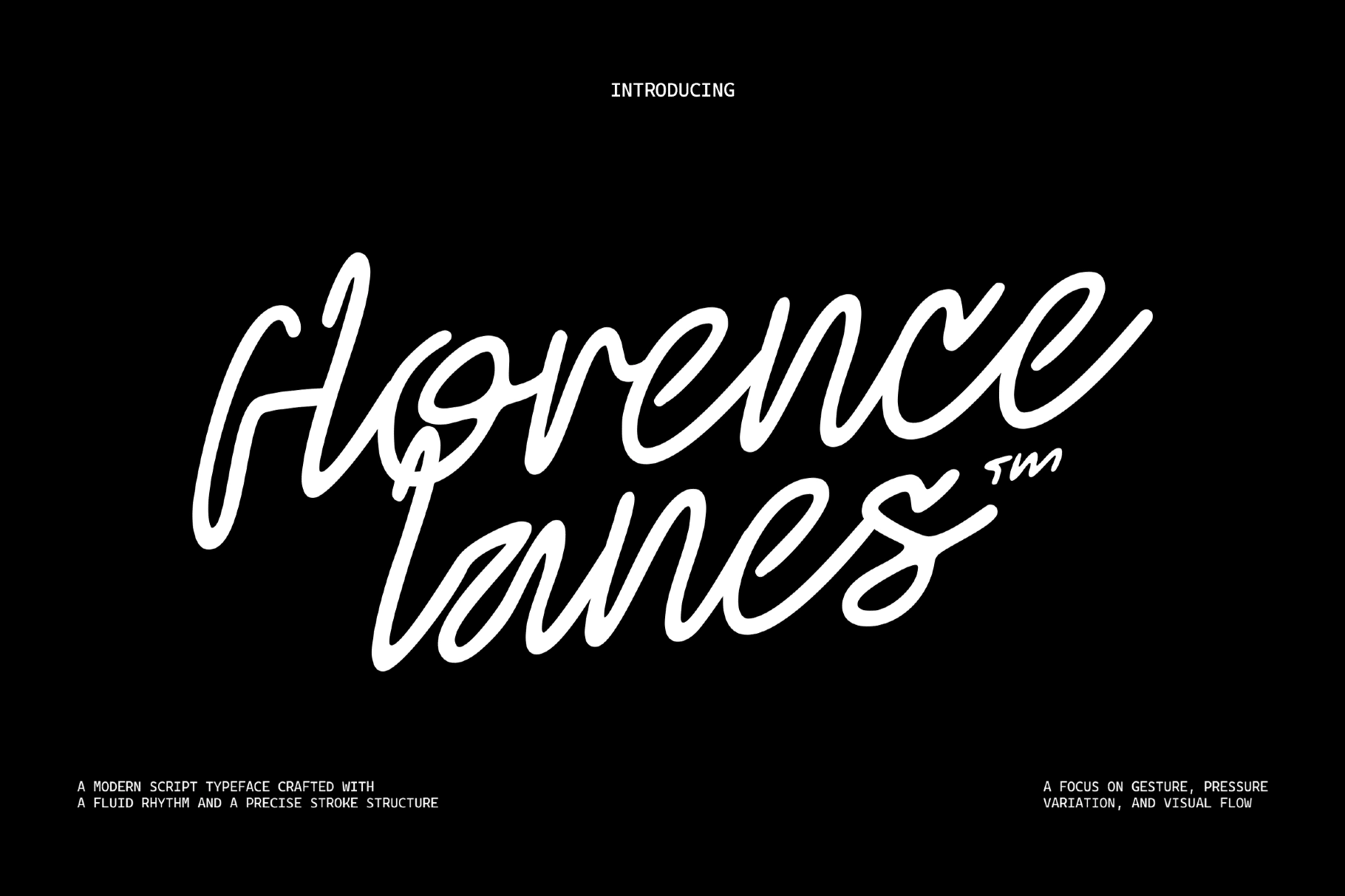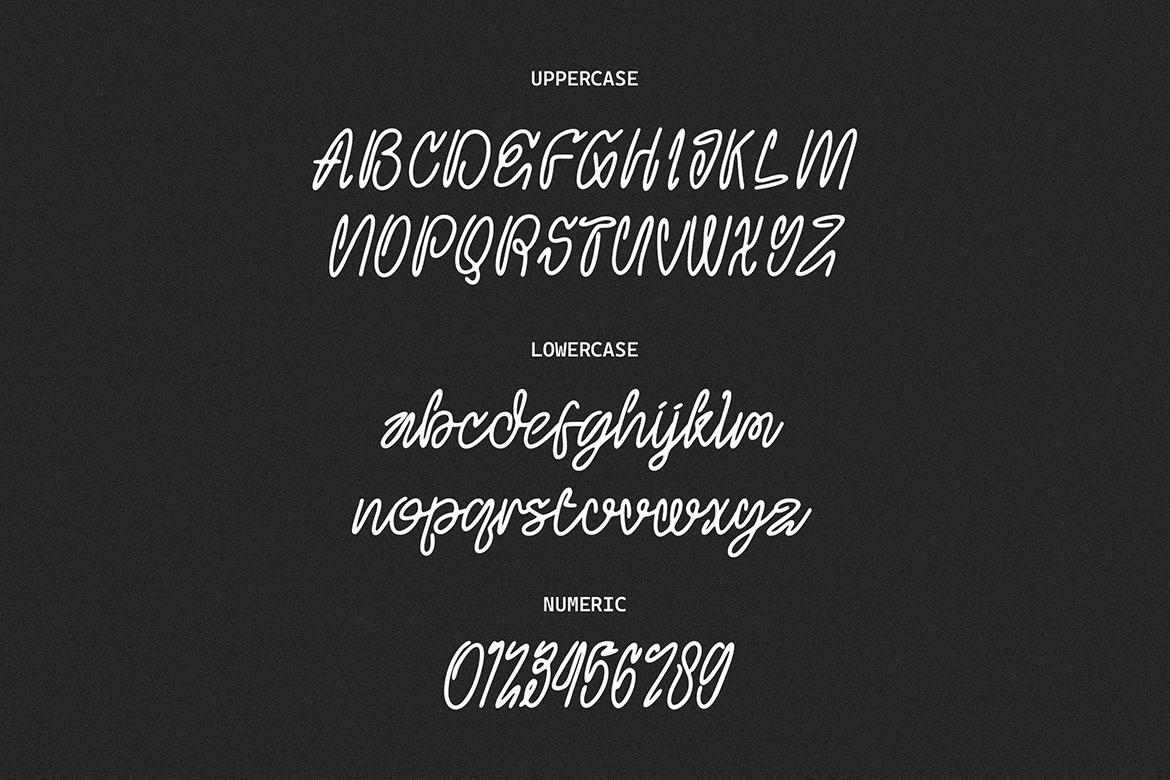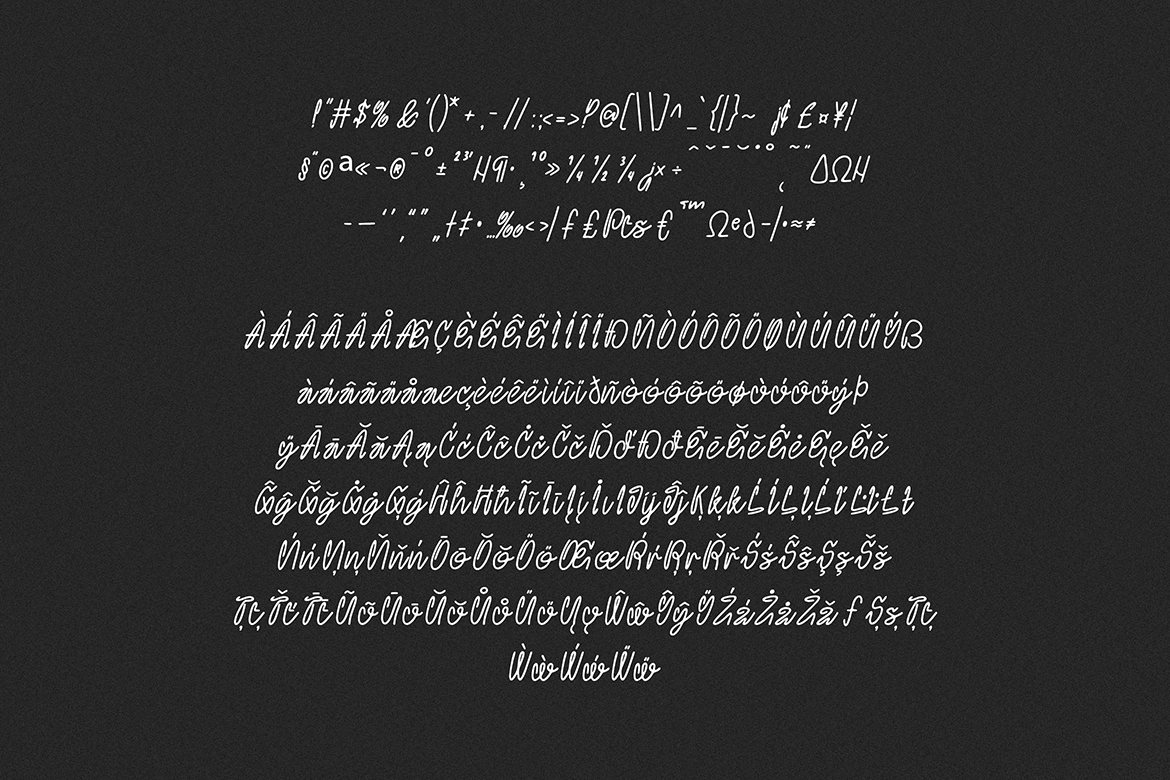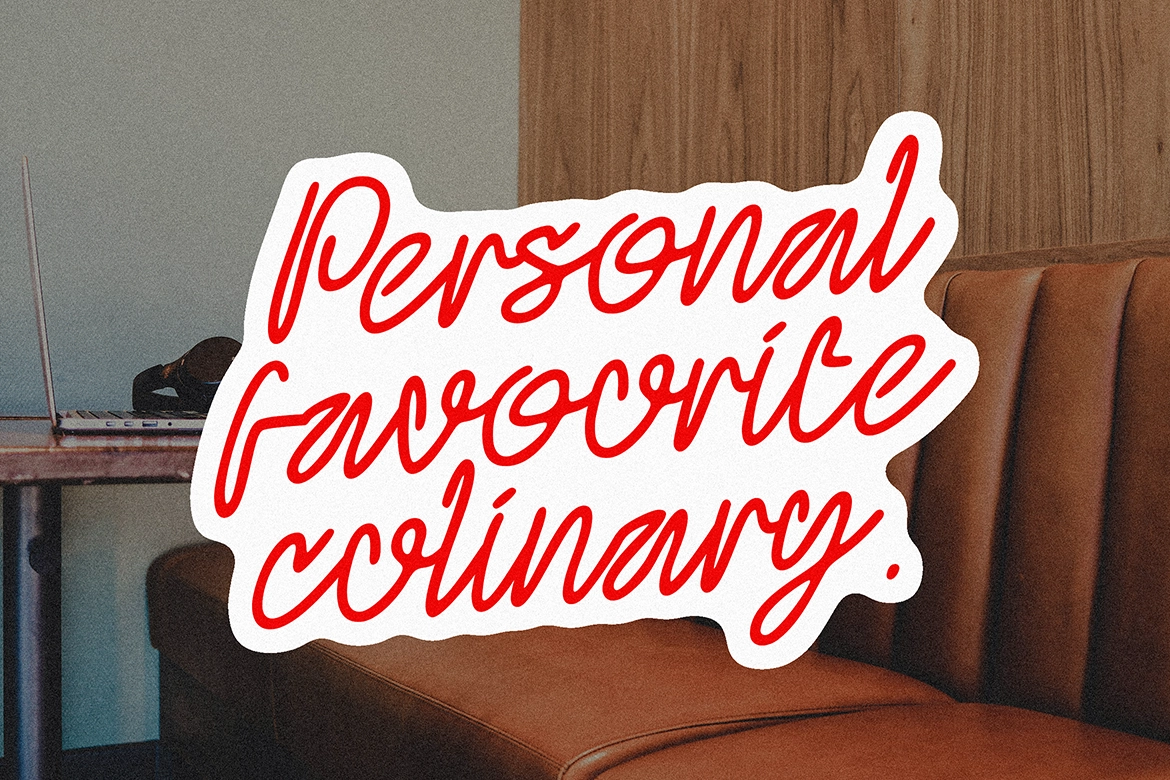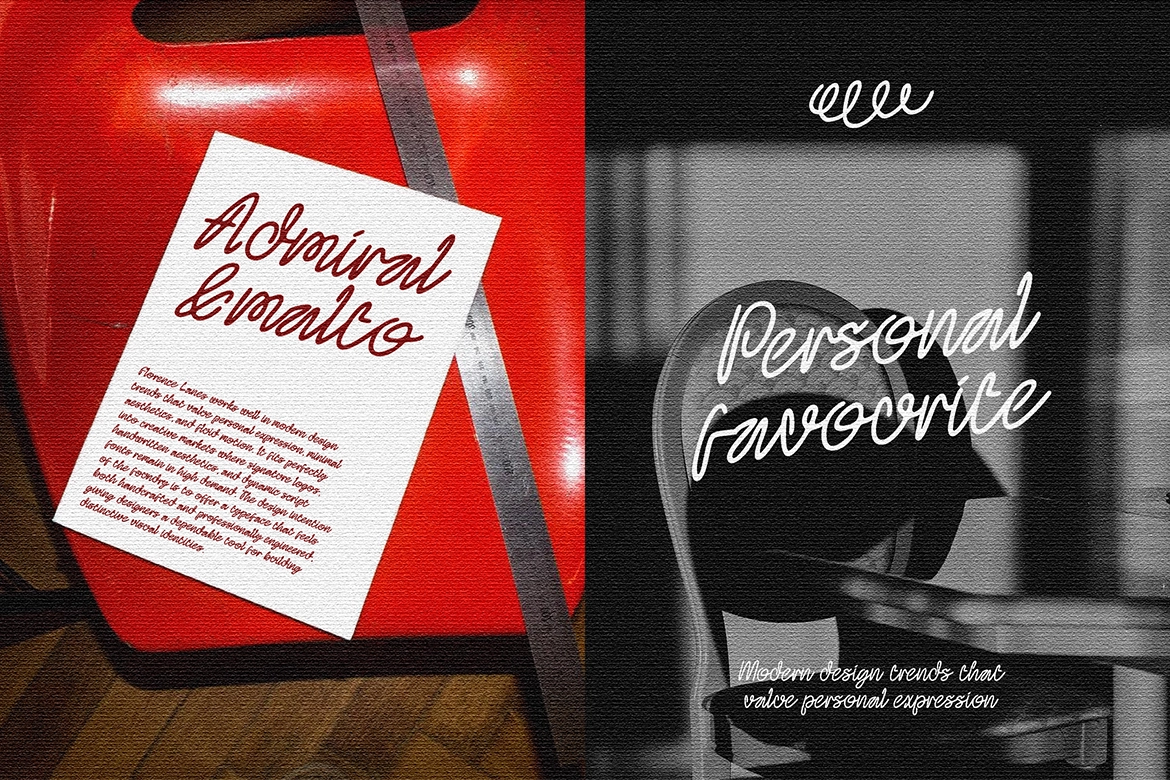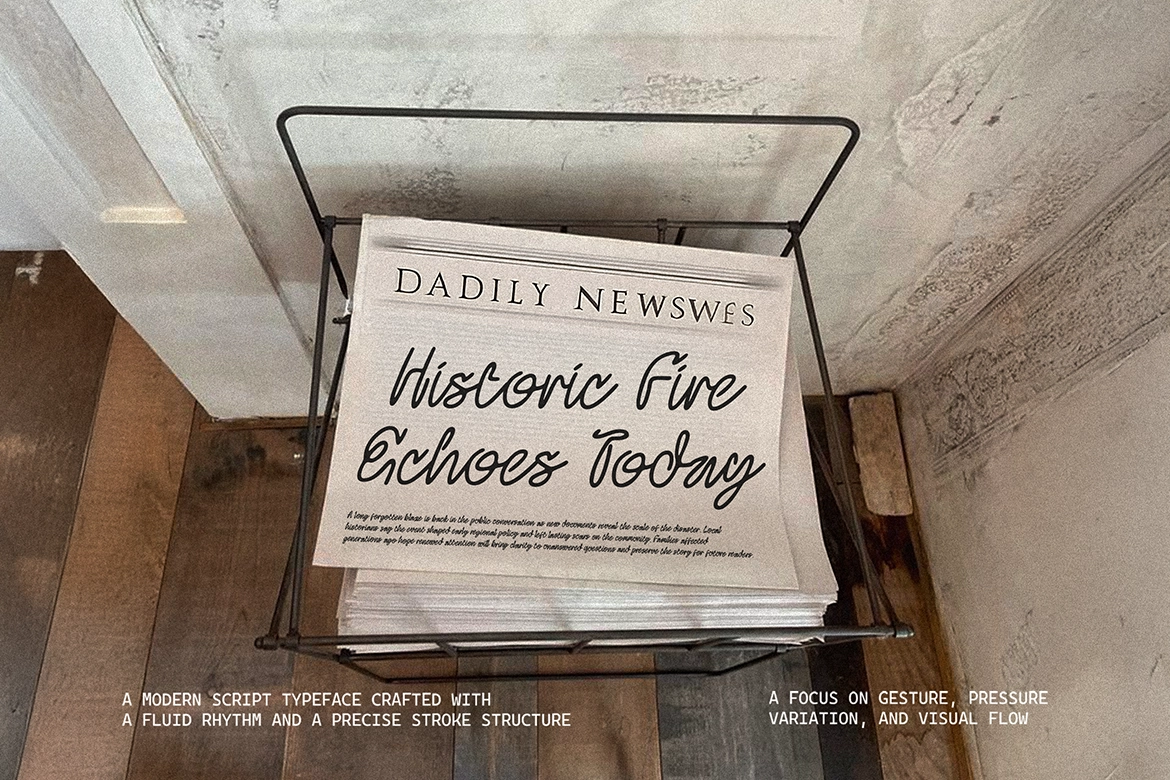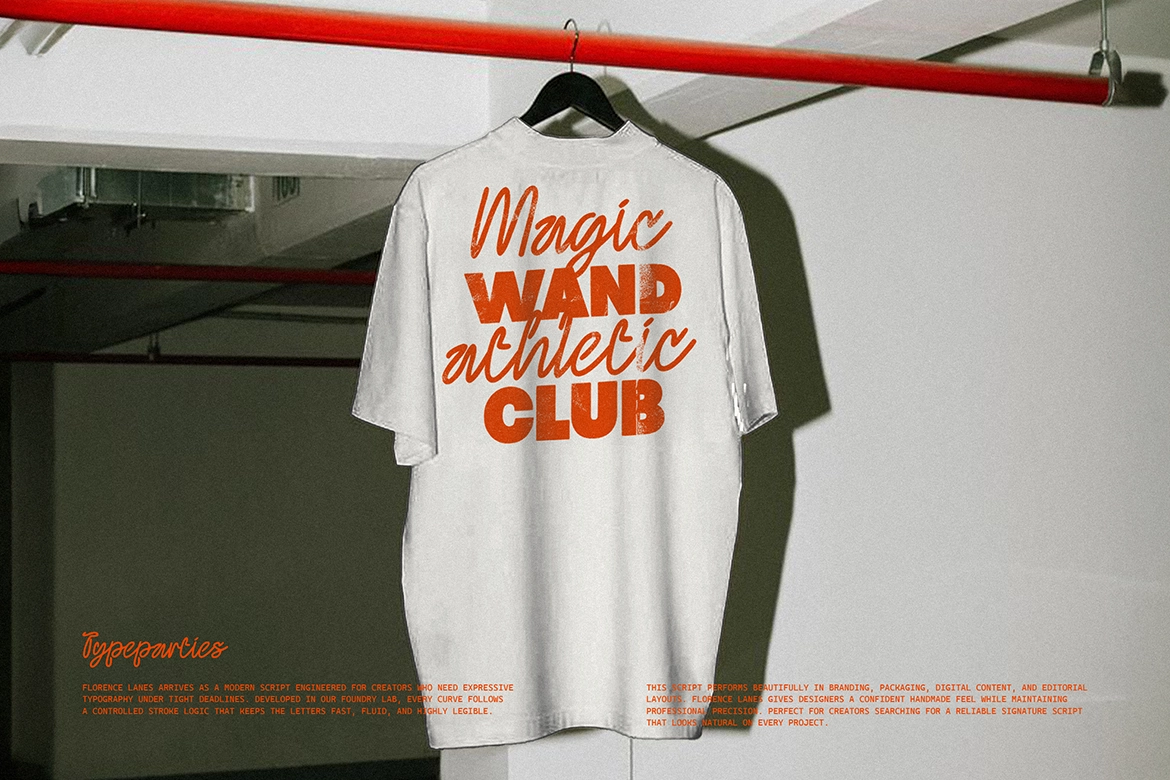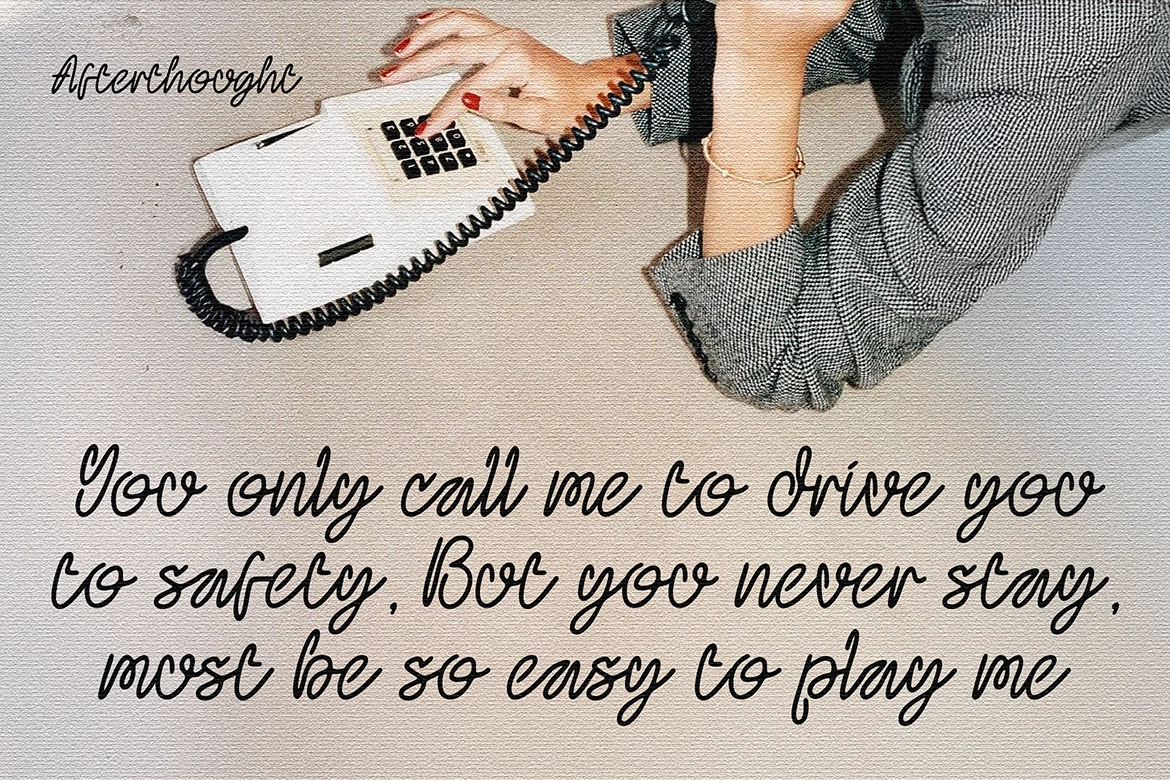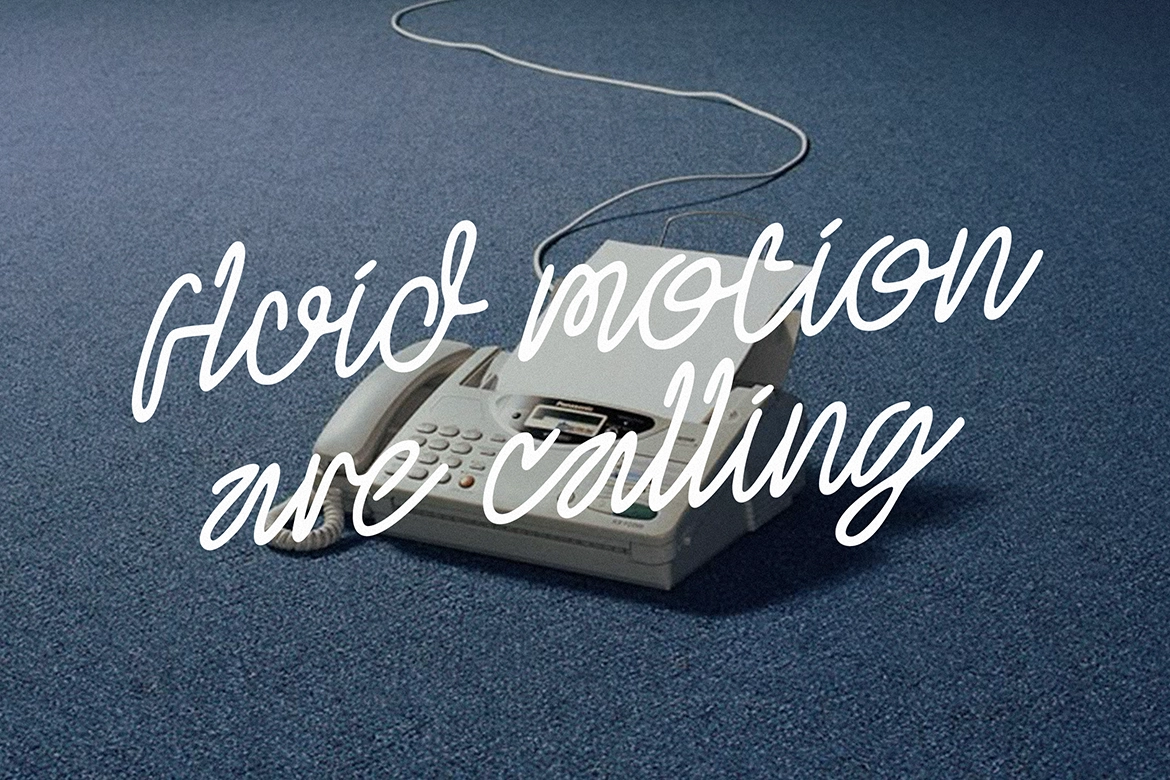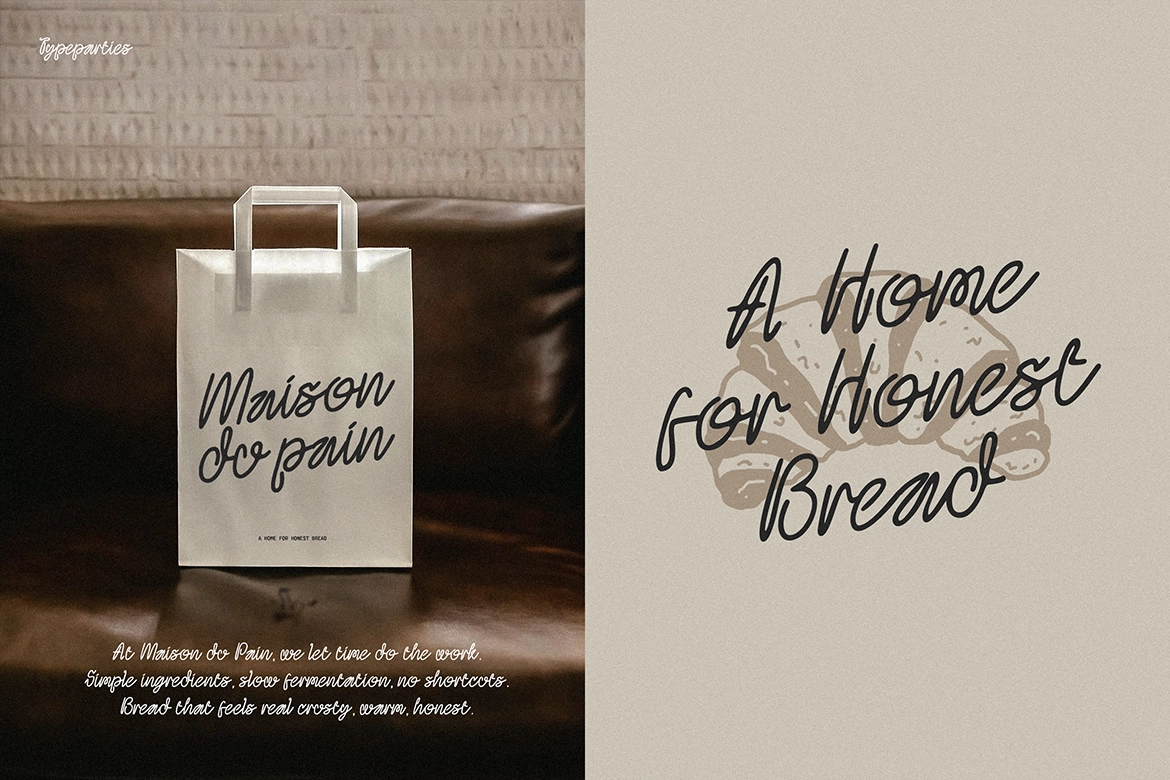
Florence Lanes - Modern Script Font
This handwritten script font has a smooth, confident rhythm with rounded strokes and a casual signature-style swing. Its connected letterforms, soft pressure changes, and loose ink-like movement give brand typography a personal look without losing polish.
Use it for boutique logos, lifestyle branding, packaging, social media quotes, product labels, posters, merch, wedding stationery, beauty branding, café graphics, editorial accents, creator signatures, and promotional artwork with a warm handwritten voice.
• Uppercase
• Lowercase
• Numerals
• Punctuation